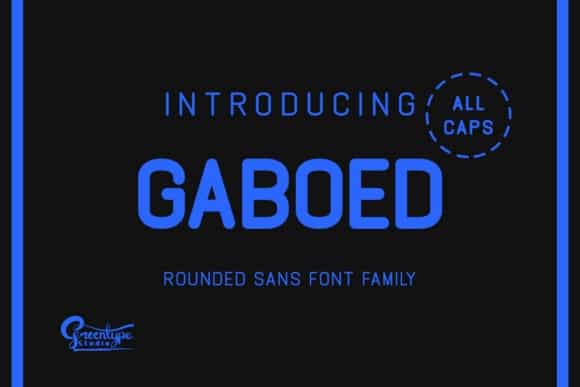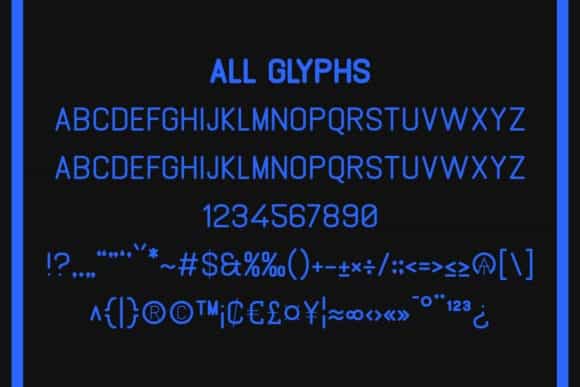
Gaboed is a clear and relaxed sans serif font that has a neat look. This font has a wonderful and tidy way of arranging the letters, so it will look great in both formal and non-formal designs.